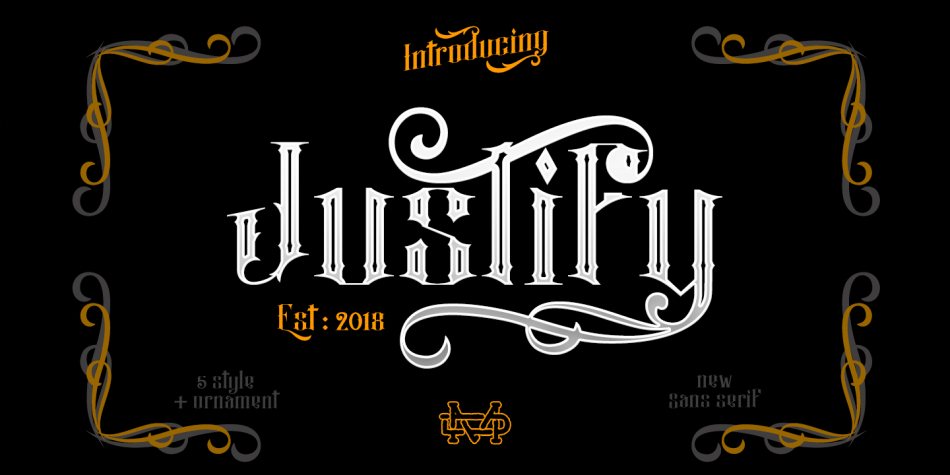
Designed by Suandana Ipandemade, Justify is a dingbat and hand display font family. This typeface has six styles and was published by madeDeduk.
Really excited to introduce fresh from the oven Justify Fonts Package is a typeface inspired in tattoo letters! Justify have six style plus ornament, Justify perfect for all your designs project.